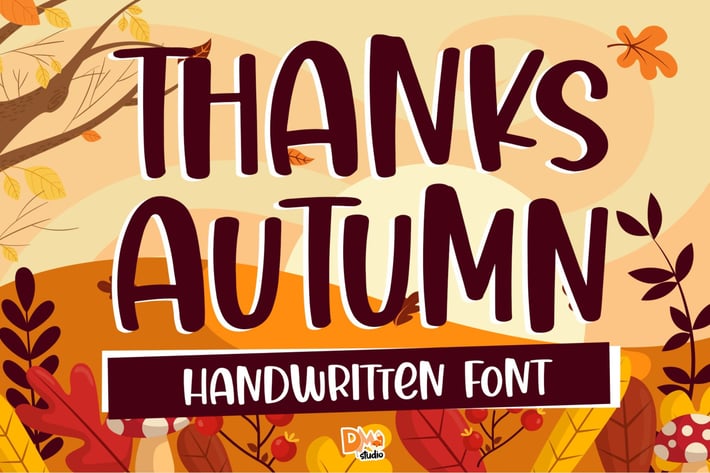
Thanks Autumn - Handwritten Font
Thanks Autumn Sweet and heartwarming font, made with love for your gorgeous project!
All in caps with two heights
Symbols